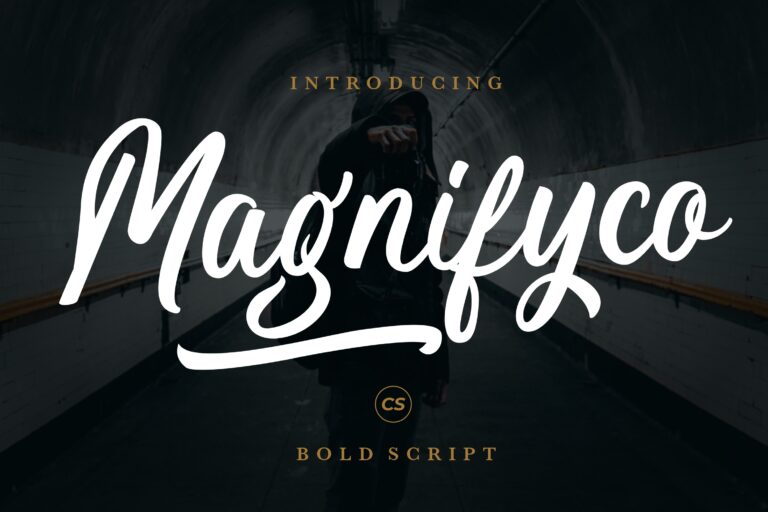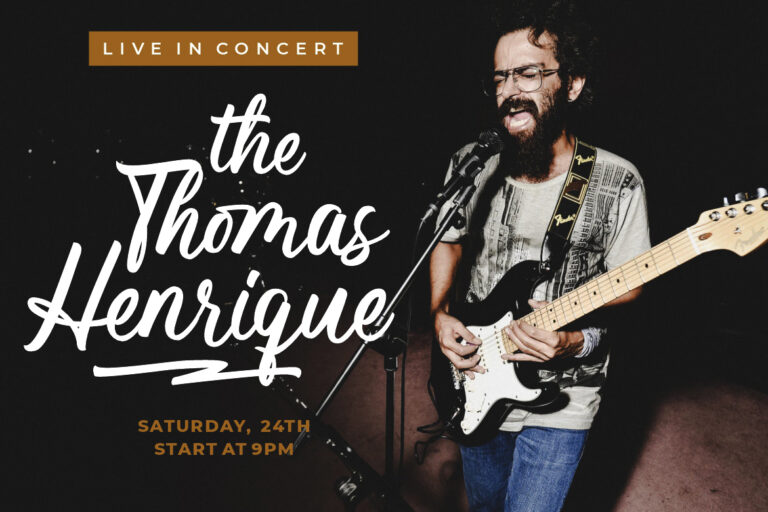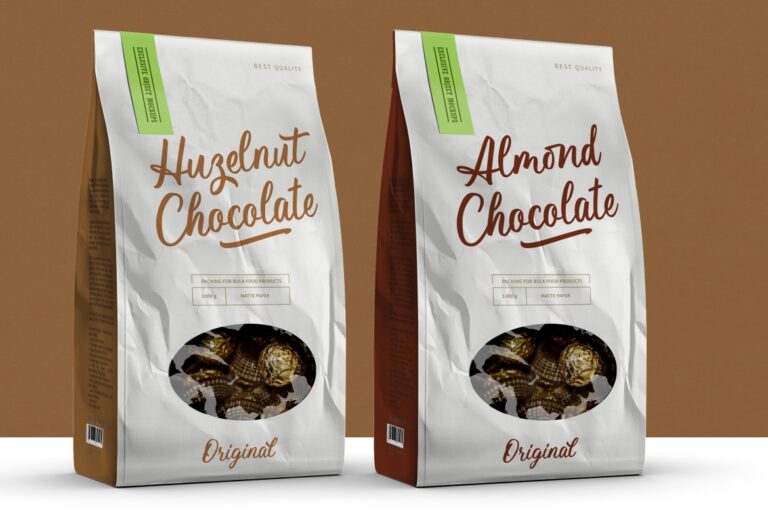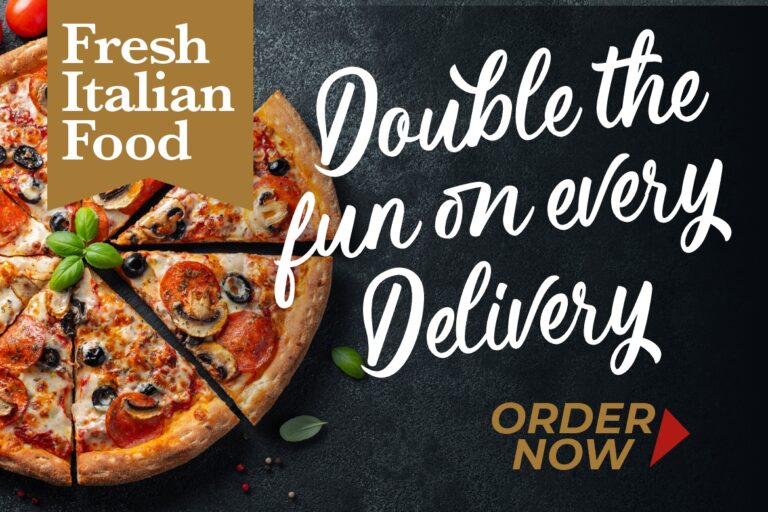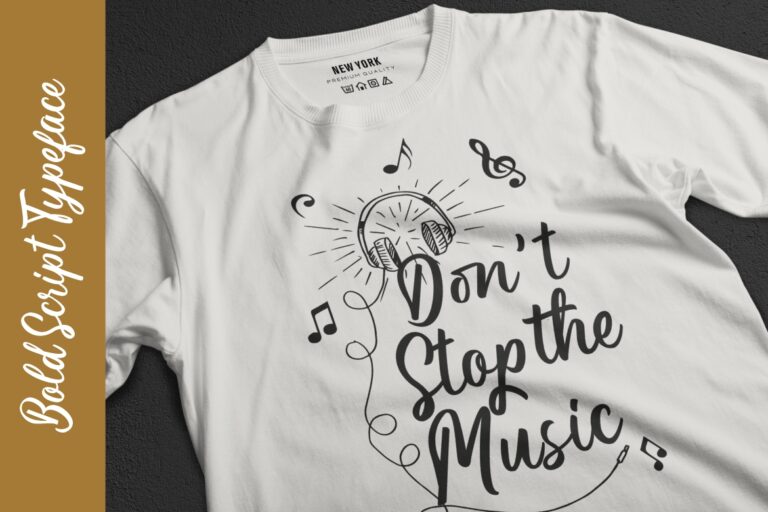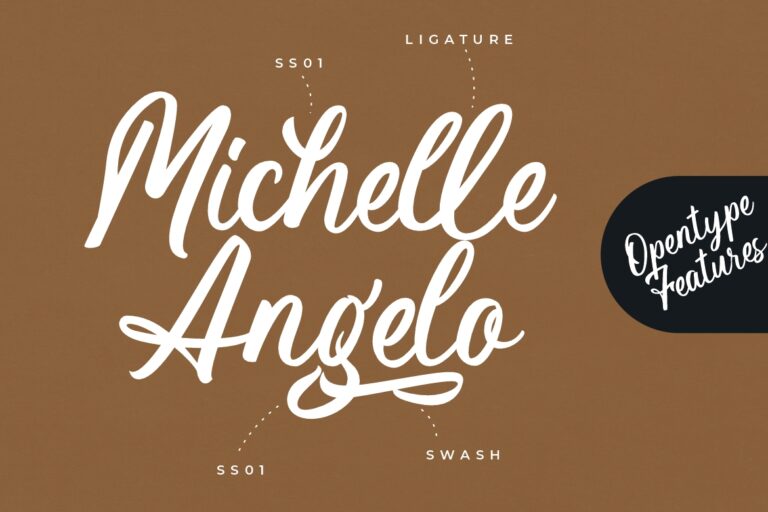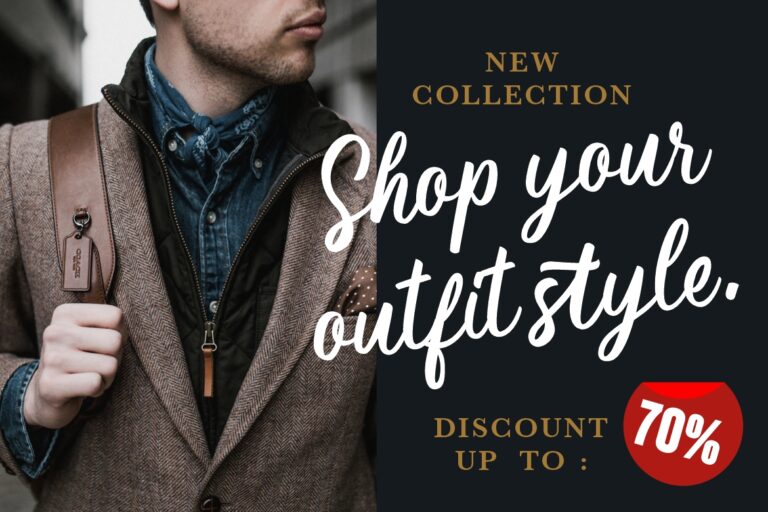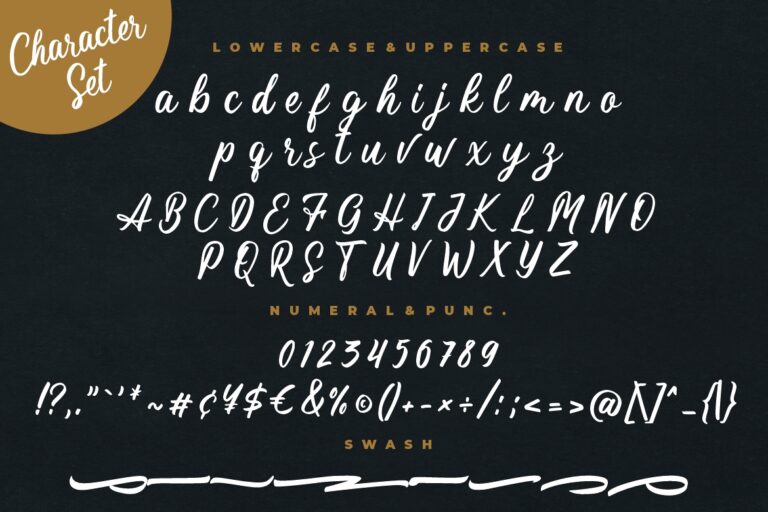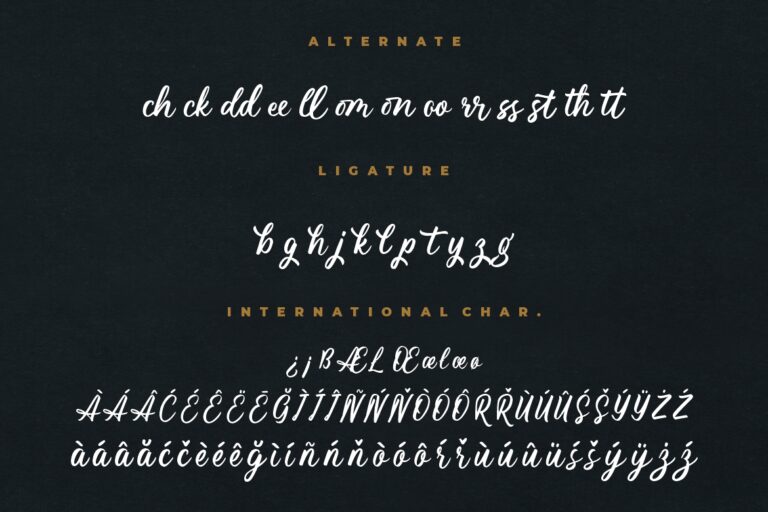
Magnifyco Bold Script
Magnifyco is bold script font that perfect for your latest project.
Magnifyco is perfect for branding projects, logo, wedding designs, social media posts, advertisements, product packaging, product designs, label, photography, watermark, invitation, stationery and any projects that need handwriting taste.
- Ligature, Alternate & Swashes
- Fonts include multilingual support for; Afrikaans, Albanian, Czech, Danish, Dutch, English, Estonian, Finnish, French, German, Hungarian, Italian, Latvian, Lithuanian, Norwegian, Polish, Portugese, Slovak, Slovenian, Spanisch, Swedish.